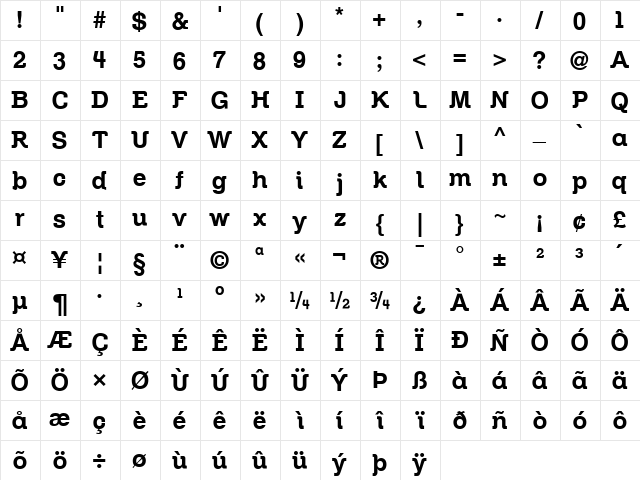
Zil Semi Slab Regular
Design Context for Zil Semi Slab Typeface
Zil Semi Slab combines the readability of serif typography with the visual weight of a slab construction, resulting in a typeface that feels both authoritative and approachable.
Suited to magazines, political campaign materials, bold packaging, and any setting where authority matters.
Pro Tip: Use Zil Semi Slab for headlines and subheadings where its slab serifs can make an impression. It also holds up well in mid-size body copy thanks to its sturdy construction.